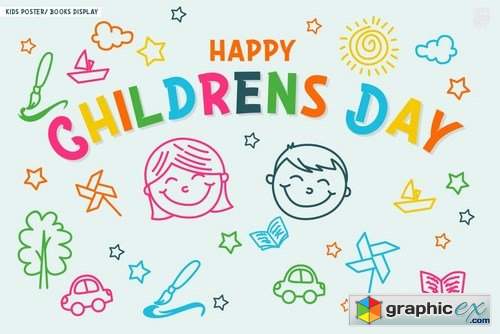
PADDINGTOONS
Paddingtoons Powerful Display font, All Caps With Variant for the Capital Letters. is perfect for Poster quotes, flyer, headings, Magazine, Children Books cover, blogs, logos, invitations and more.